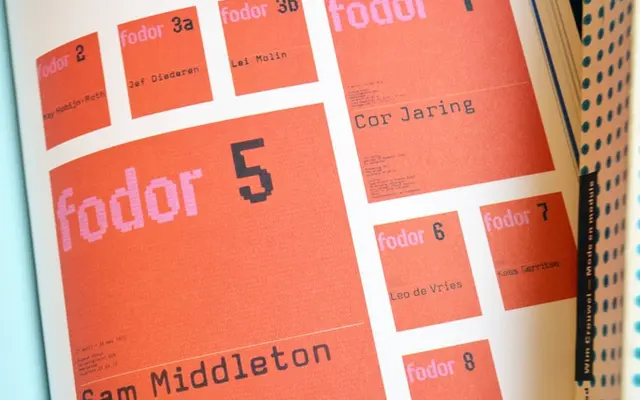
Architype Fodor
The Foundry Types · Wim Crouwel · 1996
A digital revival of Wim Crouwel's 1972 dot-matrix alphabet for the Museum Fodor magazine, built on strict grid logic and a monospaced framework.
Drawn from Crouwel's original letterforms for the Museum Fodor, Amsterdam, where cost constraints led him to design type for an electric typewriter, producing an inherently monospaced rhythm. The letterforms were constructed from a dot matrix title system overlaid on a pink-and-orange page grid, giving each character its mechanical, digital-effect character. Part of The Foundry's Crouwel Collection, developed in direct collaboration with Crouwel from 1996.
Derived from Crouwel's radical grid-based alphabet designed for the Museum Fodor magazine, constructed from a dot matrix title system to produce digital-effect letterforms. The monospaced, constructivist geometry places it firmly in the display category.